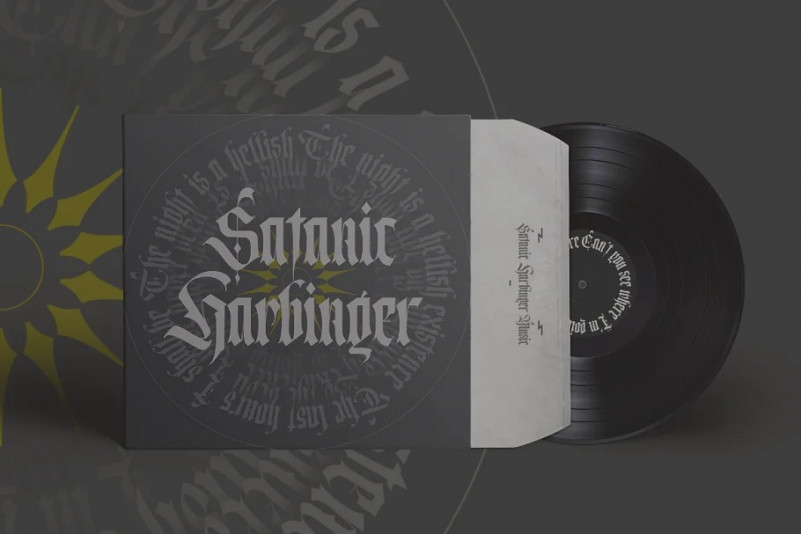
Destroyers Font
Destroyers Blackletter Font sketched with calligraphy flat pen, then vectorized with Ai & generated with font creator. Inspired by the amazing style from Raghuveer G. Some Destroyers character is composed by broken strokes, adding a handmade feeling to this geometric kind of calligraphy.
Destroys contains some interesting alternates and ligatures that make this type more real.